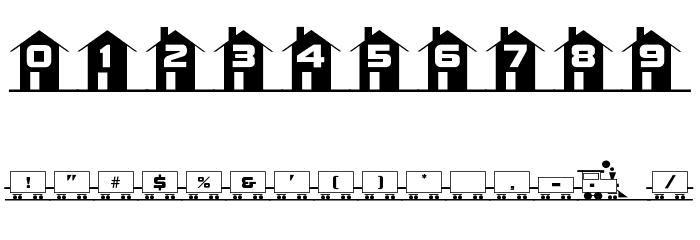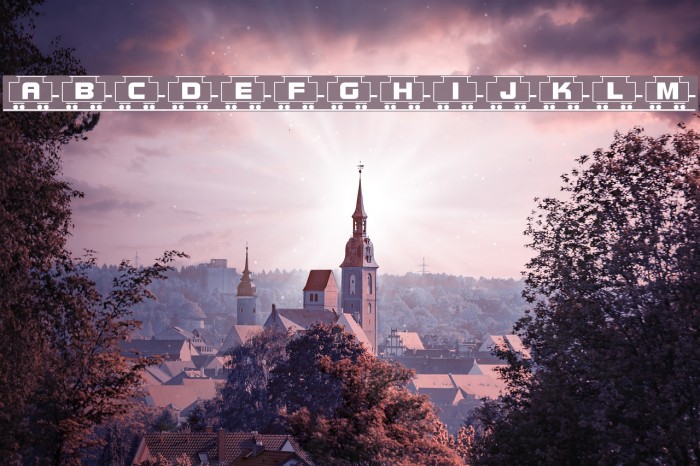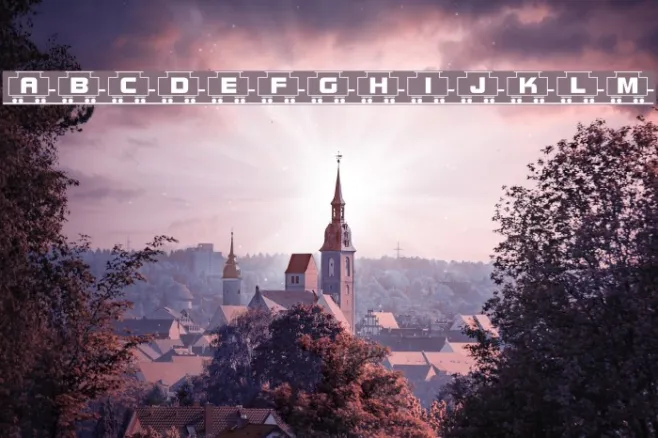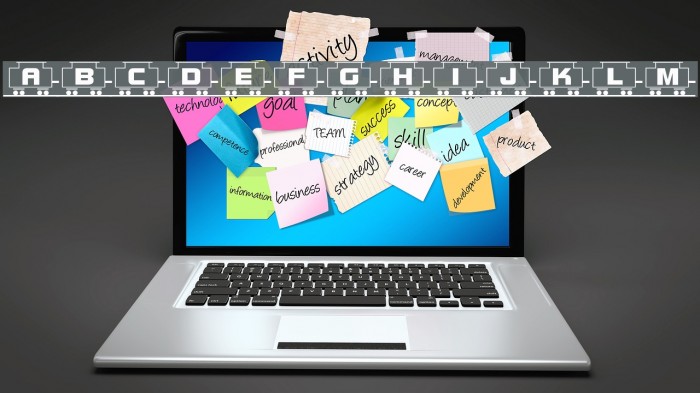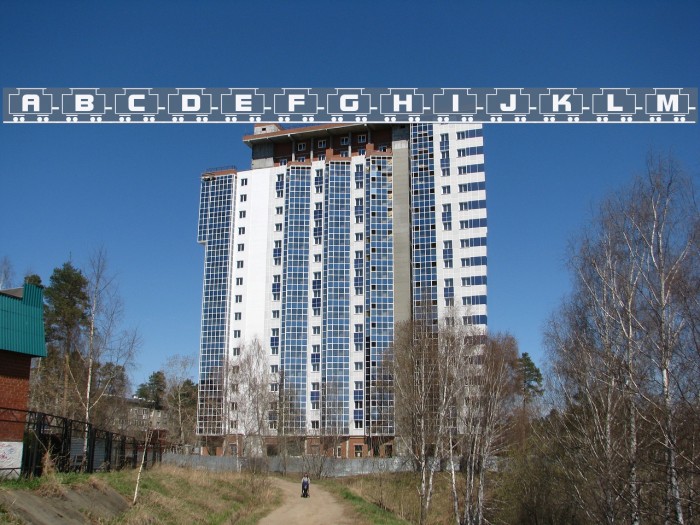
TQF_FreightTrain Font
TQF_FreightTrain Description
This playful and whimsical font features characters designed to resemble train cars, each letter and number appearing as part of a train. The uppercase and lowercase letters are enclosed in boxy train car shapes, while the numbers are styled as houses, adding a unique and creative touch. The special characters are also integrated into the train theme, maintaining a consistent and imaginative design throughout. This font is perfect for projects that require a fun and thematic approach, especially those related to transportation or children's content.
| Proposed Projects | Ideal for children's books, transportation-themed posters, playful branding, and educational materials. |